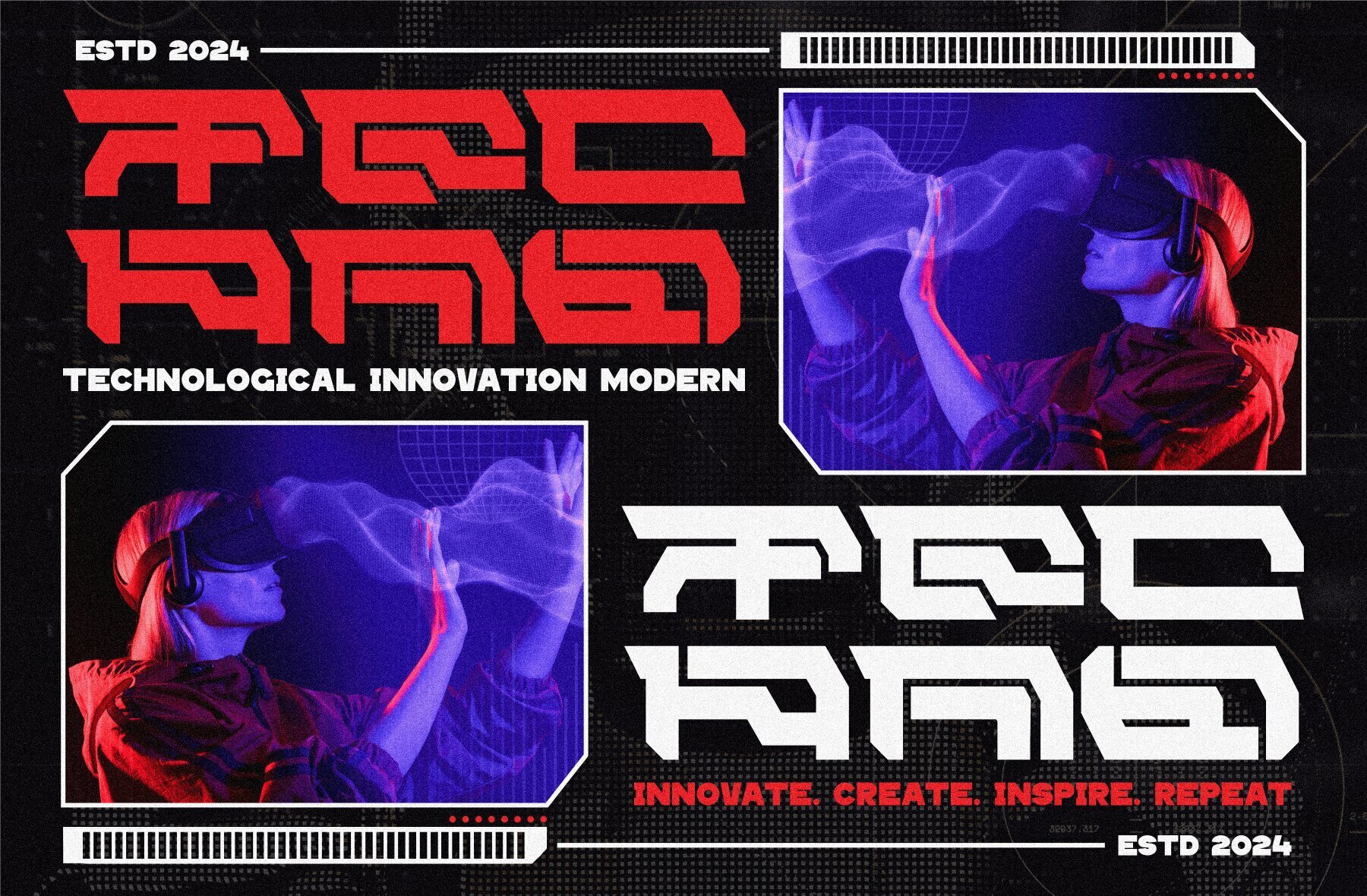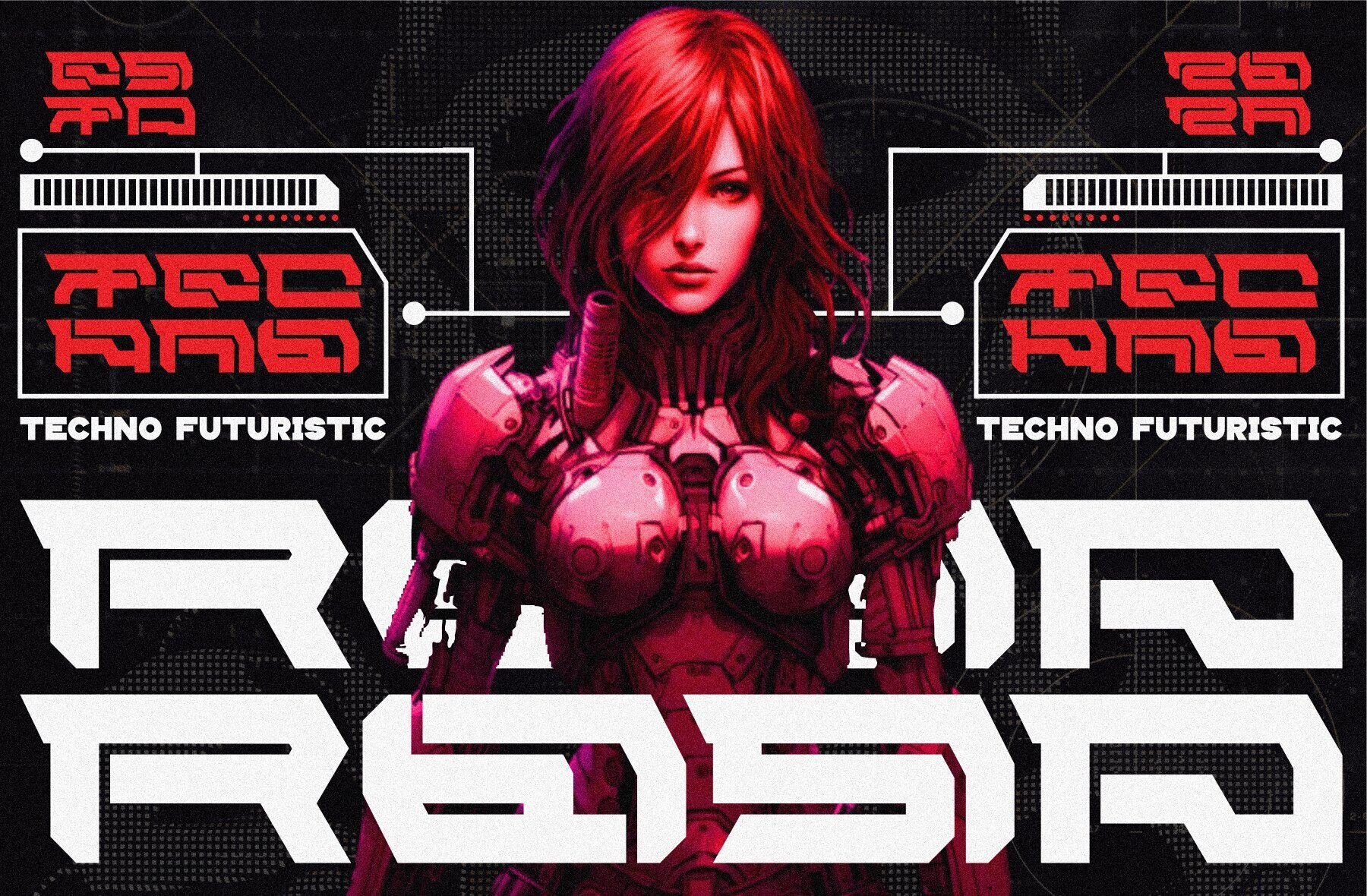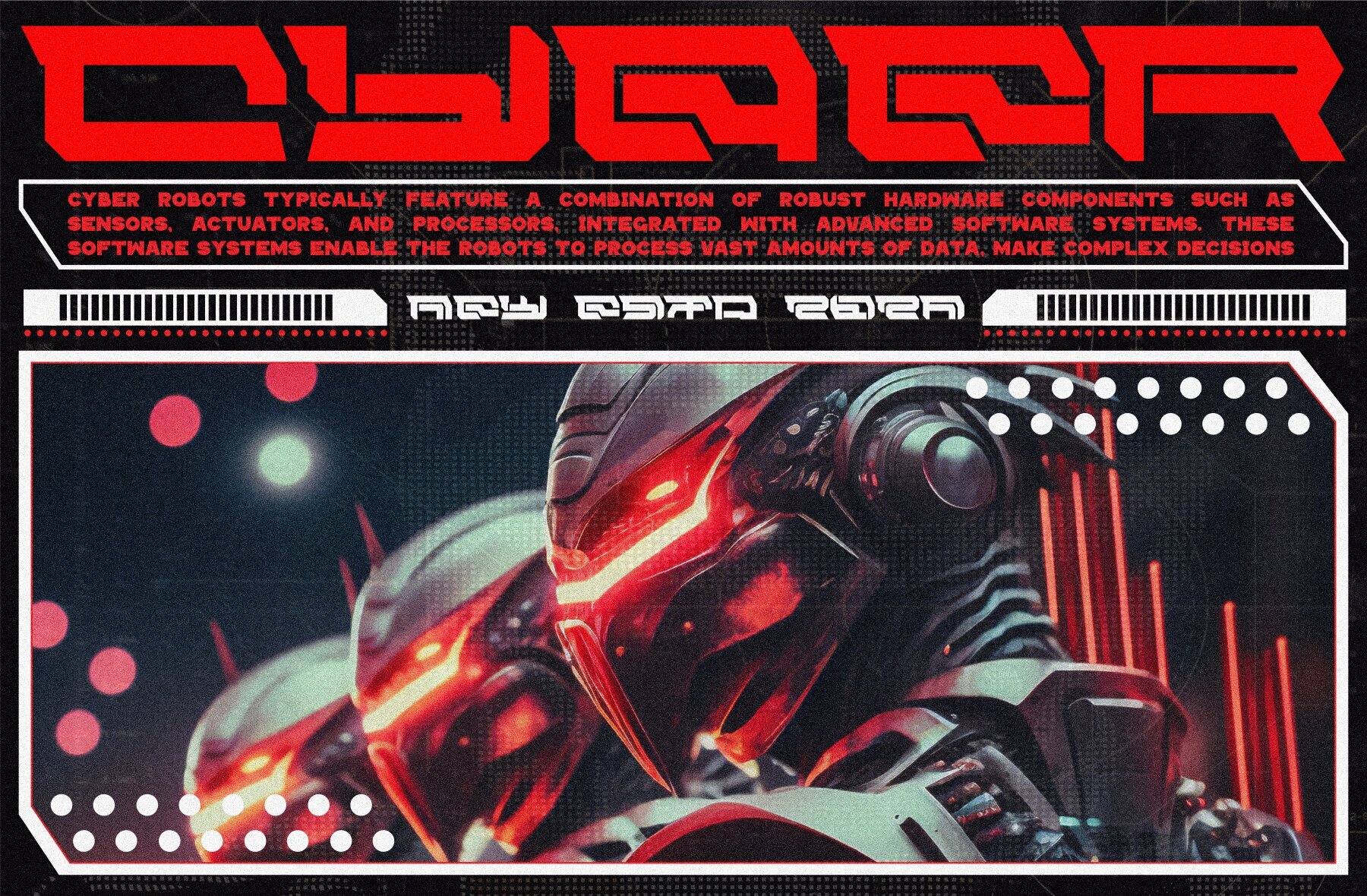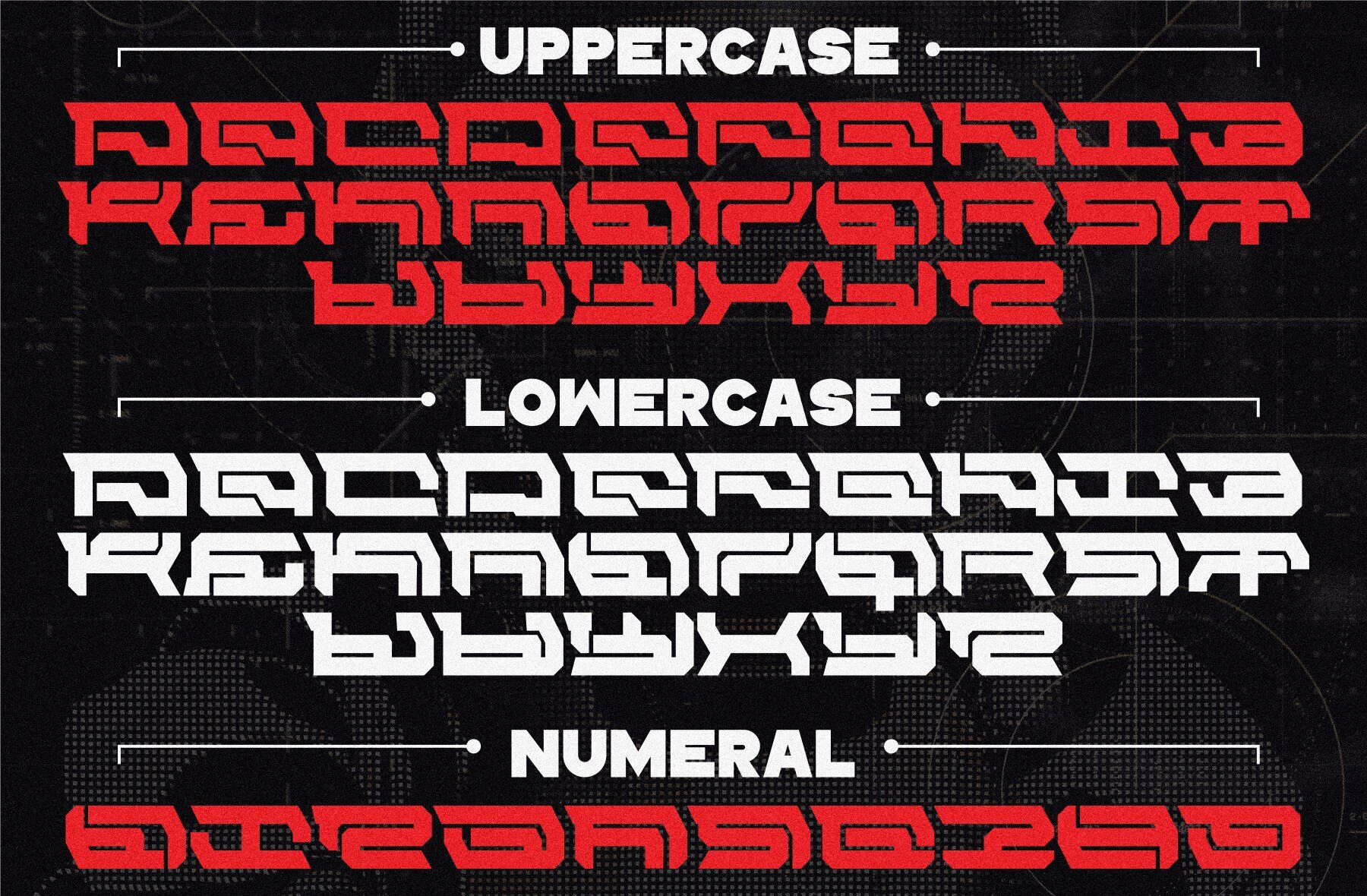
Bizo Font
Bizo Regular
This font is a bold, geometric sans-serif with a distinctly futuristic aesthetic. Its modular, block-like structures and precise angular cuts give it a clean, industrial feel, making it suitable for contemporary design projects that aim to convey innovation, strength, and a touch of edgence. The uniformity in line weight and the modernist touches make it particularly effective for headlines, posters, and other display uses where a strong visual impact is needed.